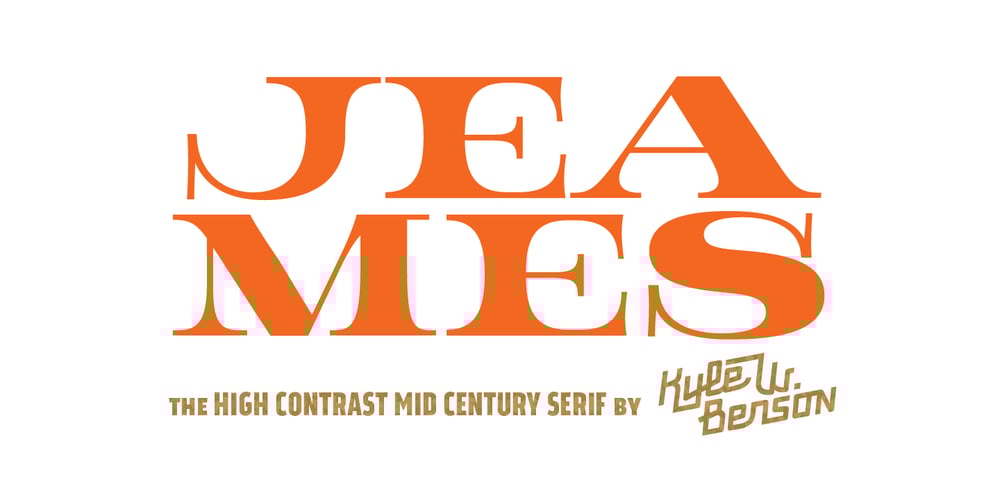
Jeames Font Family was designed by Kyle Benson and published by Kyle Wayne Benson. Jeames contains 3 styles and family package options. Jeames brings familiarity to the often detached feeling extended serif genre. The curved, heavy, joints let the letters bounce along while the proportions and contrast keep your eyes grounded. This mid century inspired family of three weights is intended for large titles and display. The set includes language support, opentype fractions, and other fun glyphs. You can learn more about its development here.